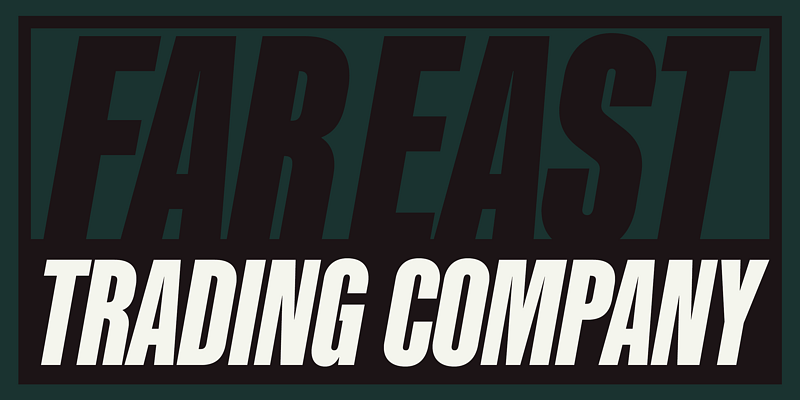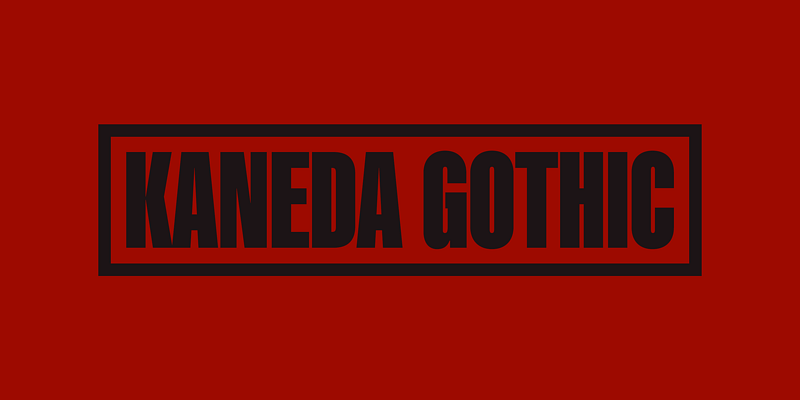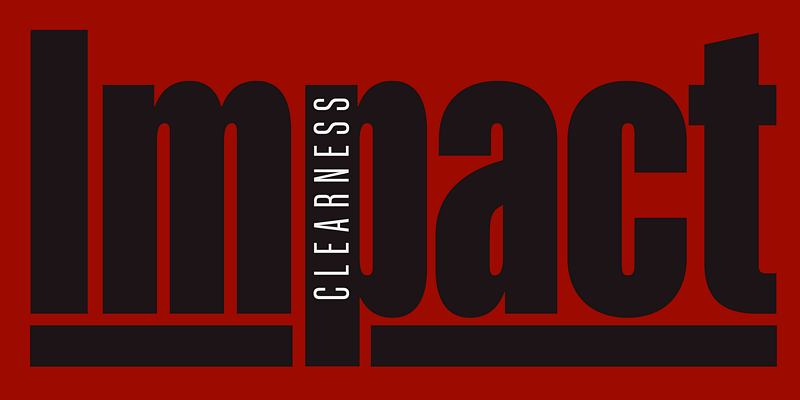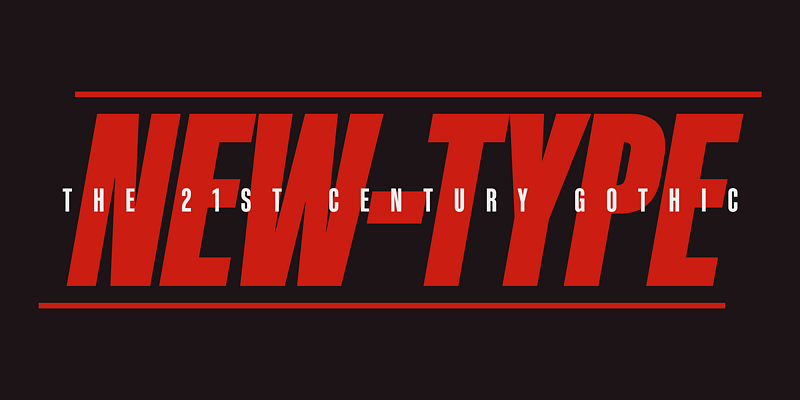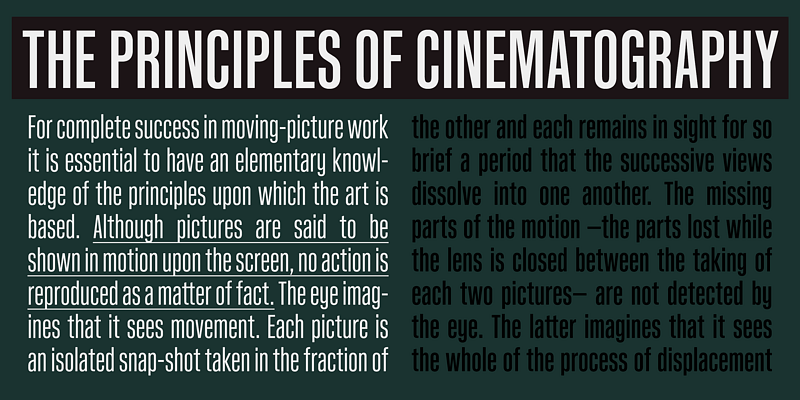
Philosophically, Kaneda Gothic is the one of the niche answers in the interspace between these antinomies. Image of near-future and giant metropolis in 80s, 90s vs our real life in the 2010s, 20s.